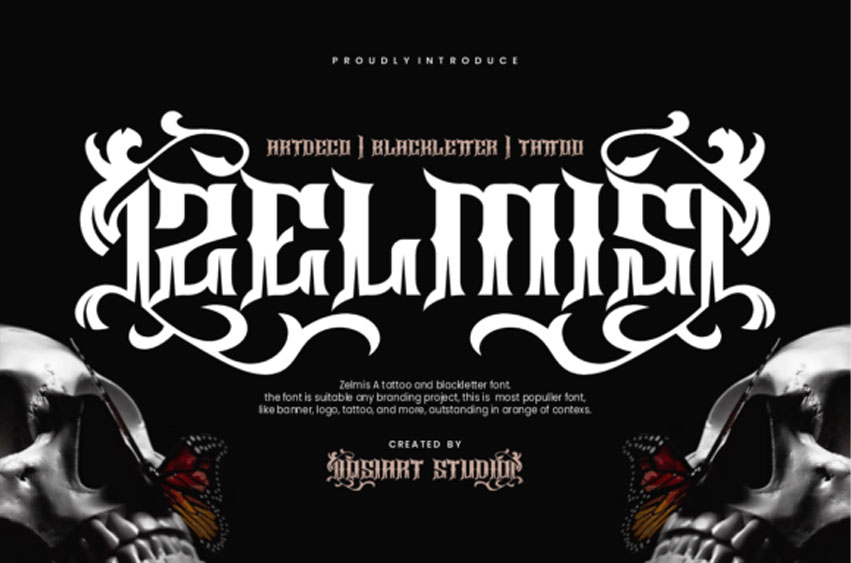
Zelmis Font is a Bold Fusion of Blackletter, Art Deco, and Tattoo Culture
Introducing Zelmis, a striking display font that channels the raw elegance of tattoo art, the structured boldness of blackletter tradition, and the ornamental sophistication of Art Deco styling. Crafted for maximum impact, Zelmis is more than a typeface—it’s a visual statement that commands attention.
This font thrives in bold, expressive contexts. Ideal for tattoos, logos, branding projects, band artwork, banners, and editorial design, Zelmis is designed to stand out across a wide range of creative applications. Its intricate serifs and unique ornamental flourishes lend a sense of power and mystique to every letterform.
Zelmis includes uppercase characters, numerals, and essential punctuation, making it a versatile tool for designers who want to inject drama, attitude, and elegance into their work. Perfect for alternative subcultures, vintage aesthetics, and modern gothic branding, this font delivers a visually captivating experience with every use.